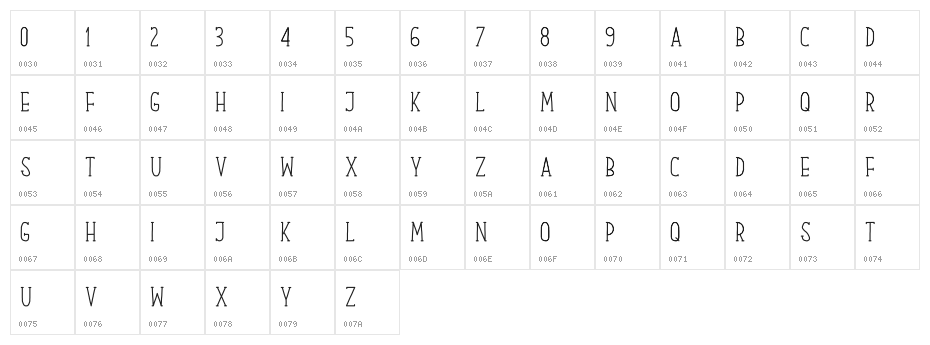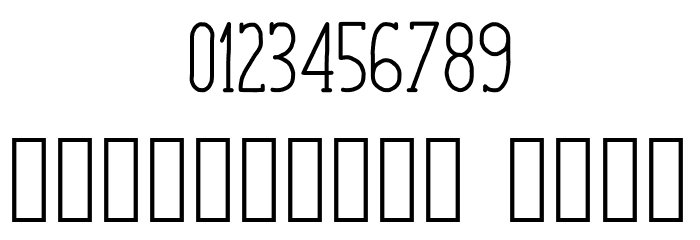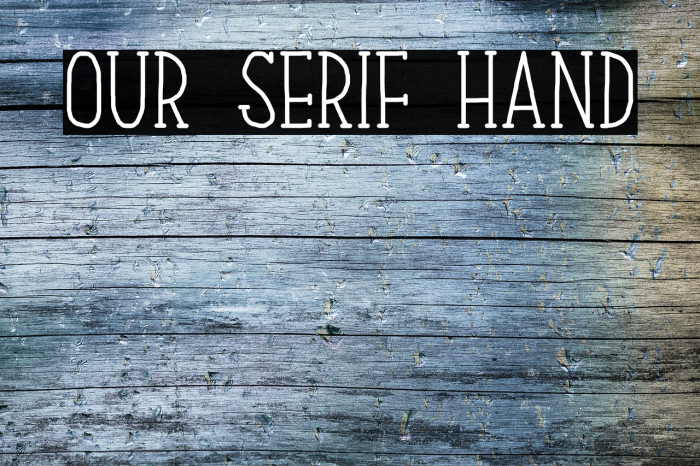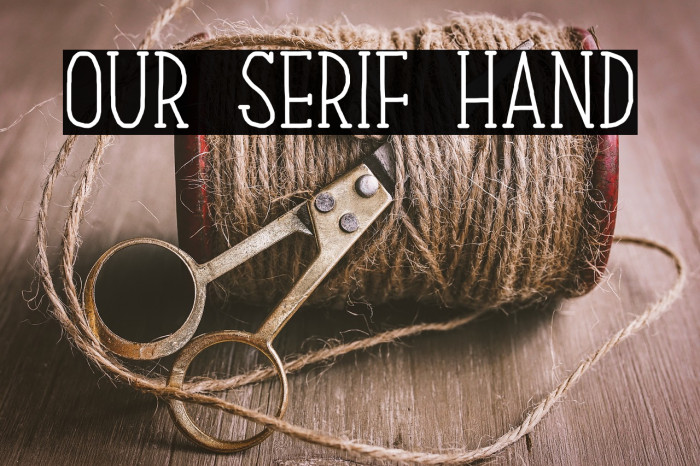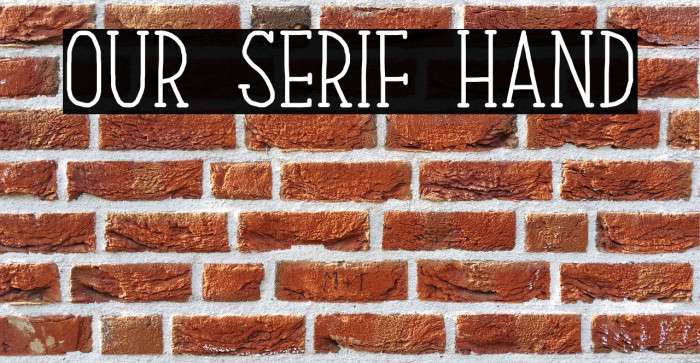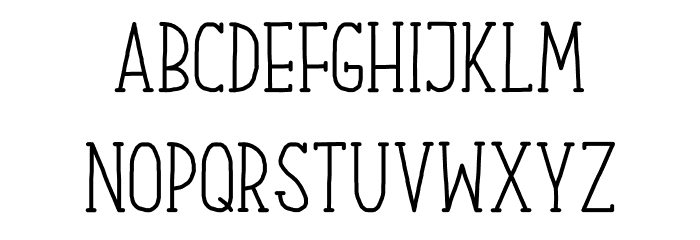
Our Serif Hand Font
Our Serif Hand Description
This font features a distinctive serif style with a handcrafted appearance, combining traditional serif elements with a modern twist. The letters are elongated and slightly narrow, giving them an elegant yet approachable look. The strokes are consistent in weight, providing a balanced and harmonious feel. The numerals are designed to match the letterforms, maintaining the same handcrafted aesthetic. The overall style is both classic and contemporary, making it versatile for various design applications.
| Proposed Projects | Ideal for branding projects, invitations, and editorial design where a touch of elegance and uniqueness is desired. |